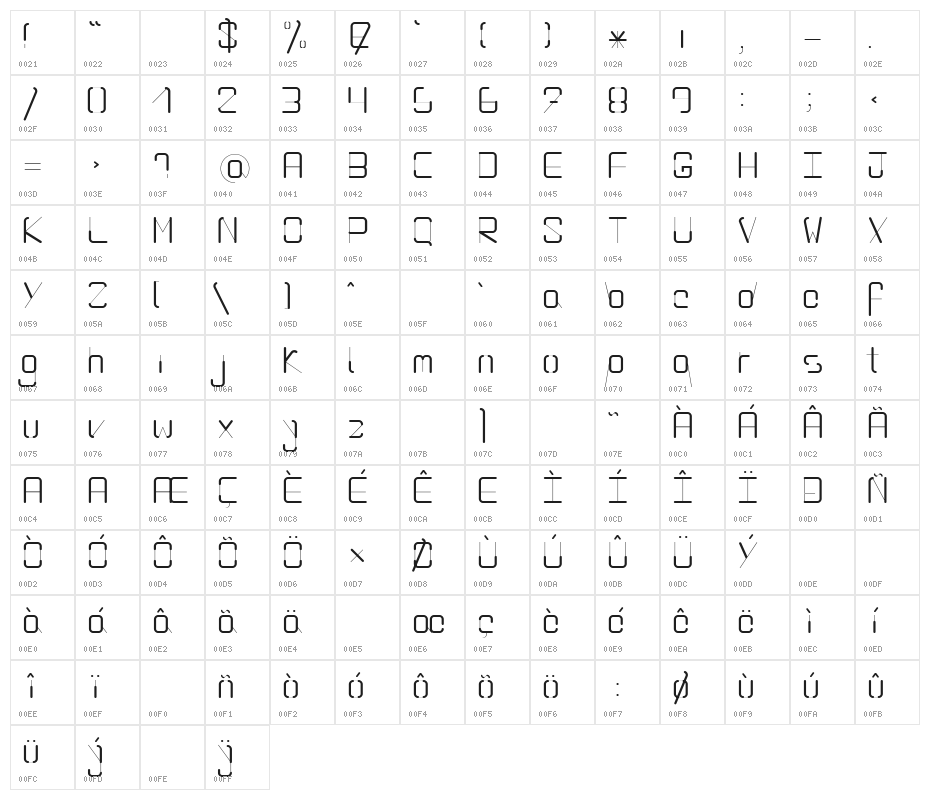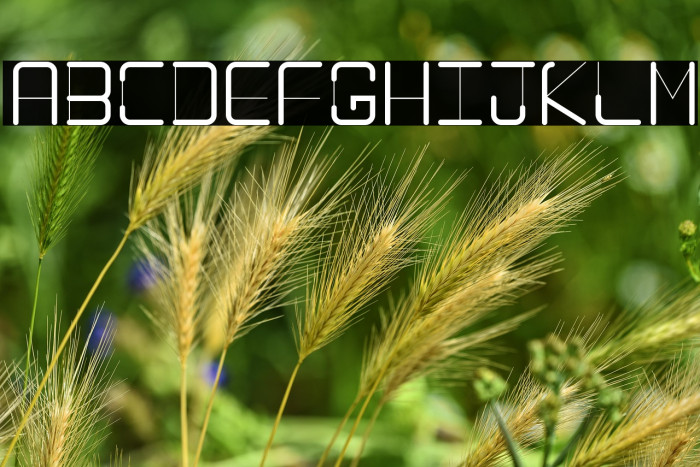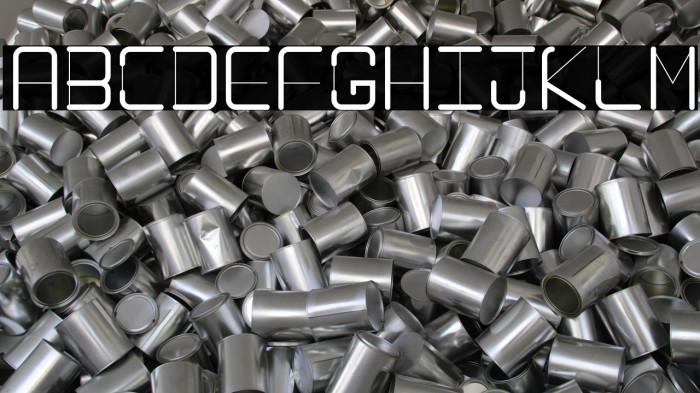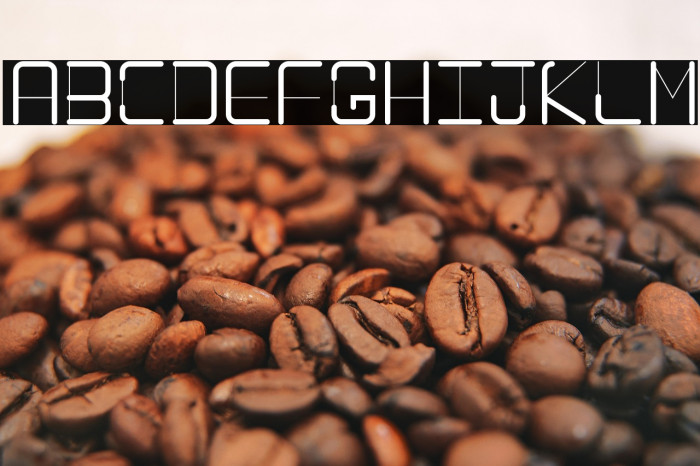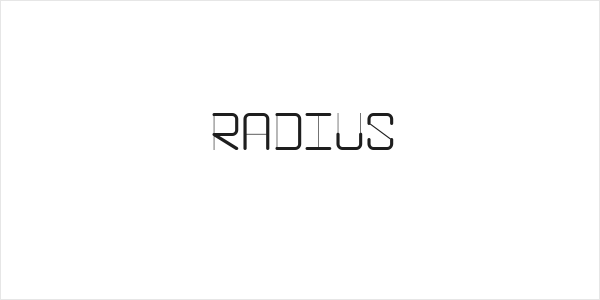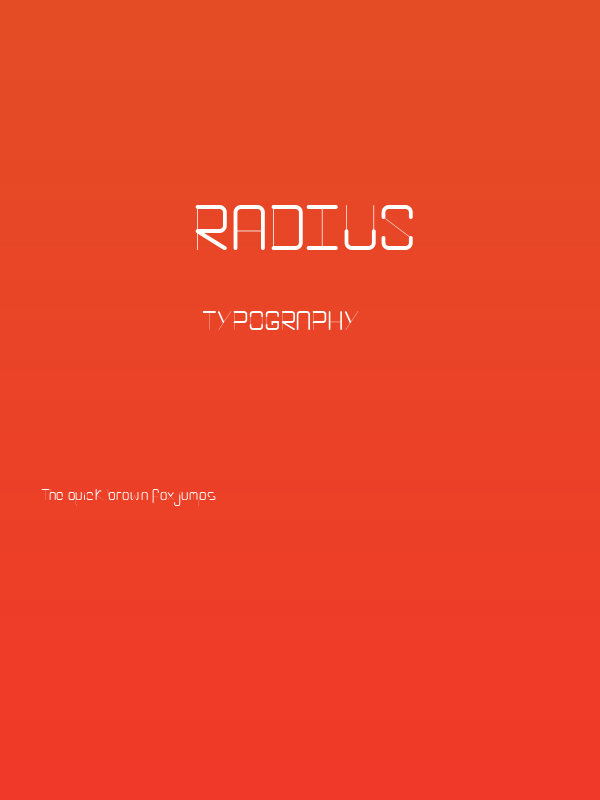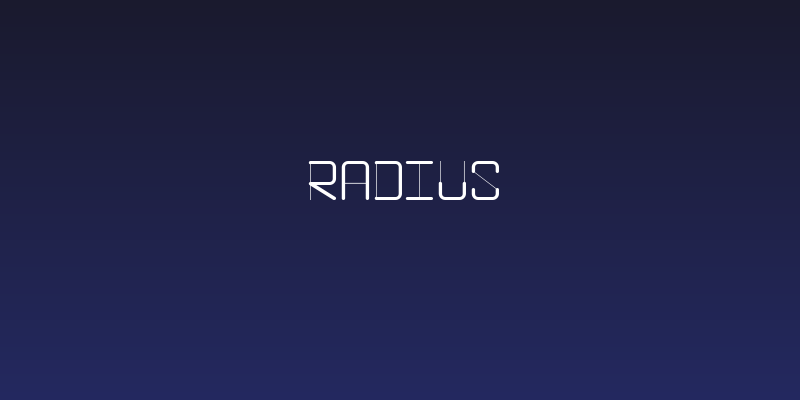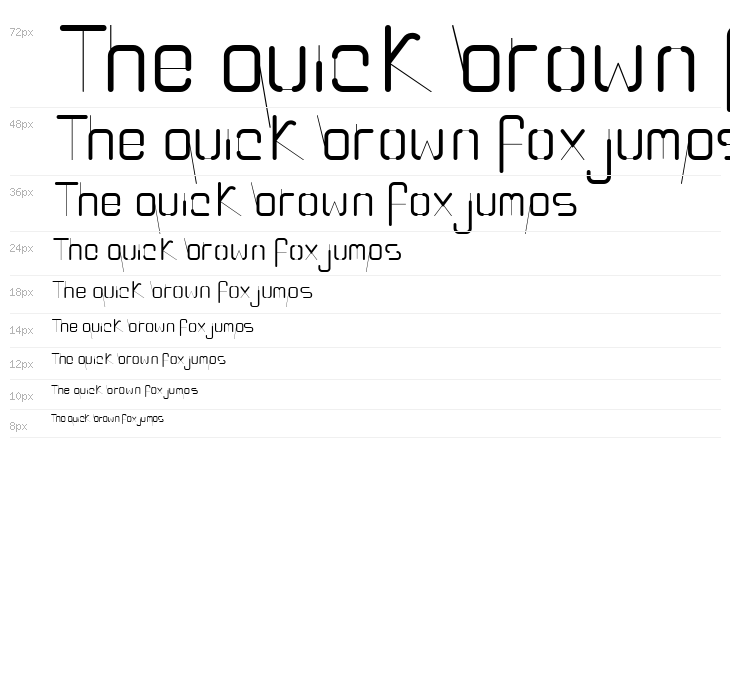
RADIUS Font
RADIUS Description
This font features a modern and futuristic design with a geometric structure. The characters are constructed with a combination of straight lines and rounded edges, giving it a sleek and technical appearance. The uppercase and lowercase letters maintain a consistent height, while the numerals and special characters follow the same design principles. The font has a unique style with certain characters, such as 'G' and 'Q', having distinctive cuts and angles. The overall look is clean and minimalistic, making it suitable for contemporary design projects.
| Use Case | Headlines, Logos, Digital Interfaces |
| Proposed Projects | Ideal for technology branding, digital interfaces, and modern advertising campaigns. |